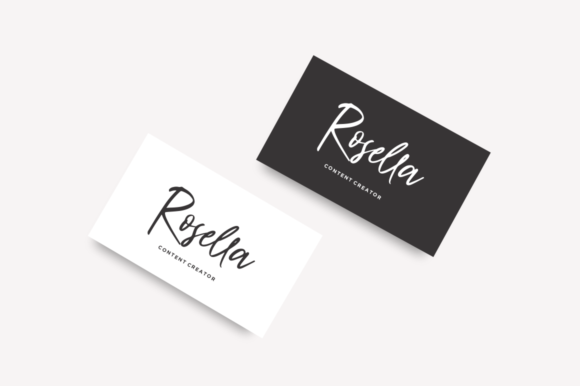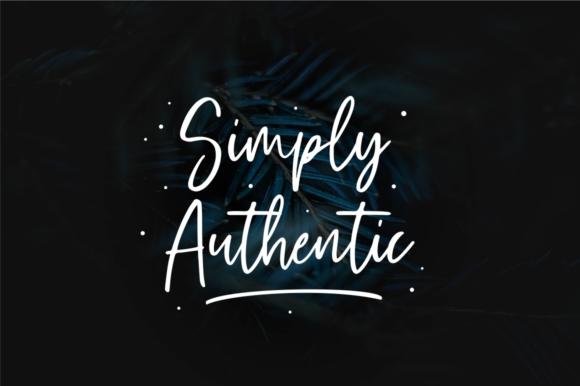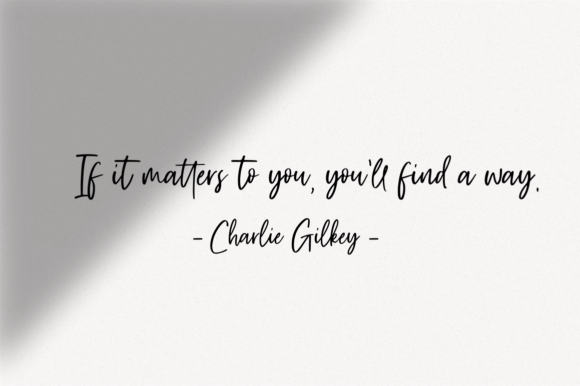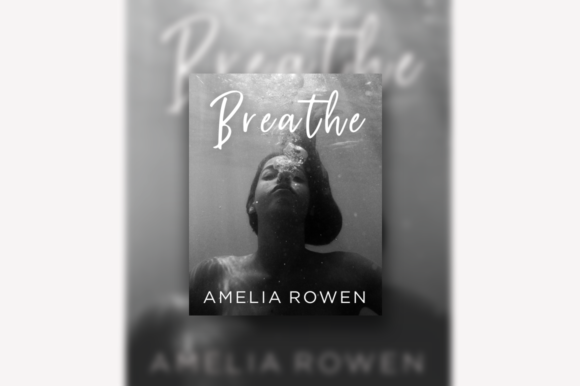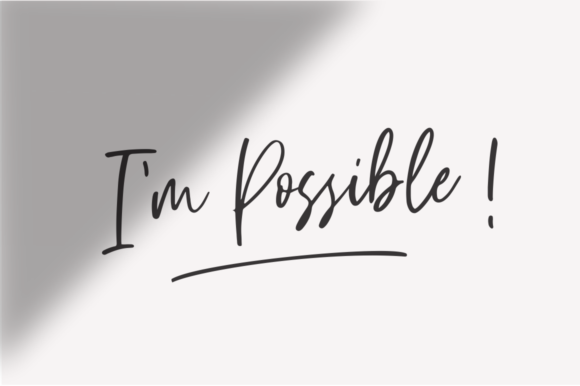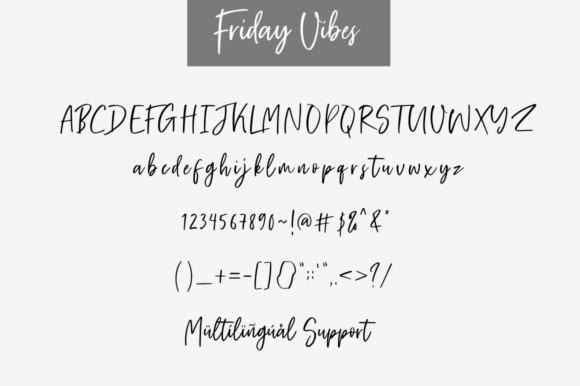
Friday Vibes Font: Elevate Your Designs with a Modern and Fresh Hand-Lettering Style
Are you tired of using the same old fonts in your designs? Do you want to add a touch of modernity and freshness to your projects? Look no further than the Friday Vibes Font! This stunning hand-lettering font is perfect for designers and crafters who want to take their work to the next level.
What is Friday Vibes Font?
The Friday Vibes Font is a modern and fresh hand-lettering font that boasts a natural style, making it perfect for a wide range of projects. Its unique and elegant lettering style is sure to capture the attention of your audience and leave a lasting impression. Whether you’re working on a logo, branding, invitation, or social media post, this font is sure to elevate your design.
Key Features of Friday Vibes Font
- Hand-lettering style: The Friday Vibes Font features a beautiful hand-lettering style that gives your designs a personal and unique touch.
- Modern and fresh: This font is perfect for designers who want to stay on top of the latest design trends.
- Natural style: The font’s natural style makes it perfect for designs that require a more organic and earthy feel.
- Versatile: The Friday Vibes Font can be used for a wide range of projects, including logos, branding, invitations, stationery, wedding designs, social media posts, advertisements, product packaging, product designs, labels, and more!
Uses of Friday Vibes Font
The Friday Vibes Font is an incredibly versatile font that can be used for various design projects. Here are some ideas to get you started:
- Logos and branding: Create a unique and memorable logo for your business or brand with the Friday Vibes Font.
- Invitations and stationery: Add a touch of elegance and sophistication to your invitations, greeting cards, and stationery.
- Wedding designs: Make your wedding designs stand out with the Friday Vibes Font. Use it for wedding invitations, ceremony programs, and more.
- Social media posts: Elevate your social media posts with a modern and fresh font that will grab the attention of your followers.
- Advertisements: Use the Friday Vibes Font to create eye-catching advertisements that will leave a lasting impression on your target audience.
- Product packaging and designs: Add a personal touch to your product packaging and designs with this beautiful hand-lettering font.
Why Choose Friday Vibes Font?
There are many fonts available in the market, but the Friday Vibes Font stands out from the rest. Here are some reasons why you should choose this font for your designs:
- Unique style: The Friday Vibes Font features a unique and elegant hand-lettering style that will set your designs apart from the rest.
- Easy to read: Despite its unique style, the font is easy to read and understand, making it perfect for body text and headings.
- High-quality: The font is of high quality, ensuring that it will look great in any design project.
- Versatile: As mentioned earlier, the Friday Vibes Font can be used for a wide range of projects, making it a great addition to any designer’s toolkit.
In conclusion, the Friday Vibes Font is a modern and fresh hand-lettering font that is perfect for designers and crafters who want to elevate their designs. Its unique style, versatility, and high-quality make it a great addition to any design project. Whether you’re working on a logo, branding, invitation, or social media post, this font is sure to leave a lasting impression on your audience. So why wait? Get your hands on the Friday Vibes Font today and take your designs to the next level!